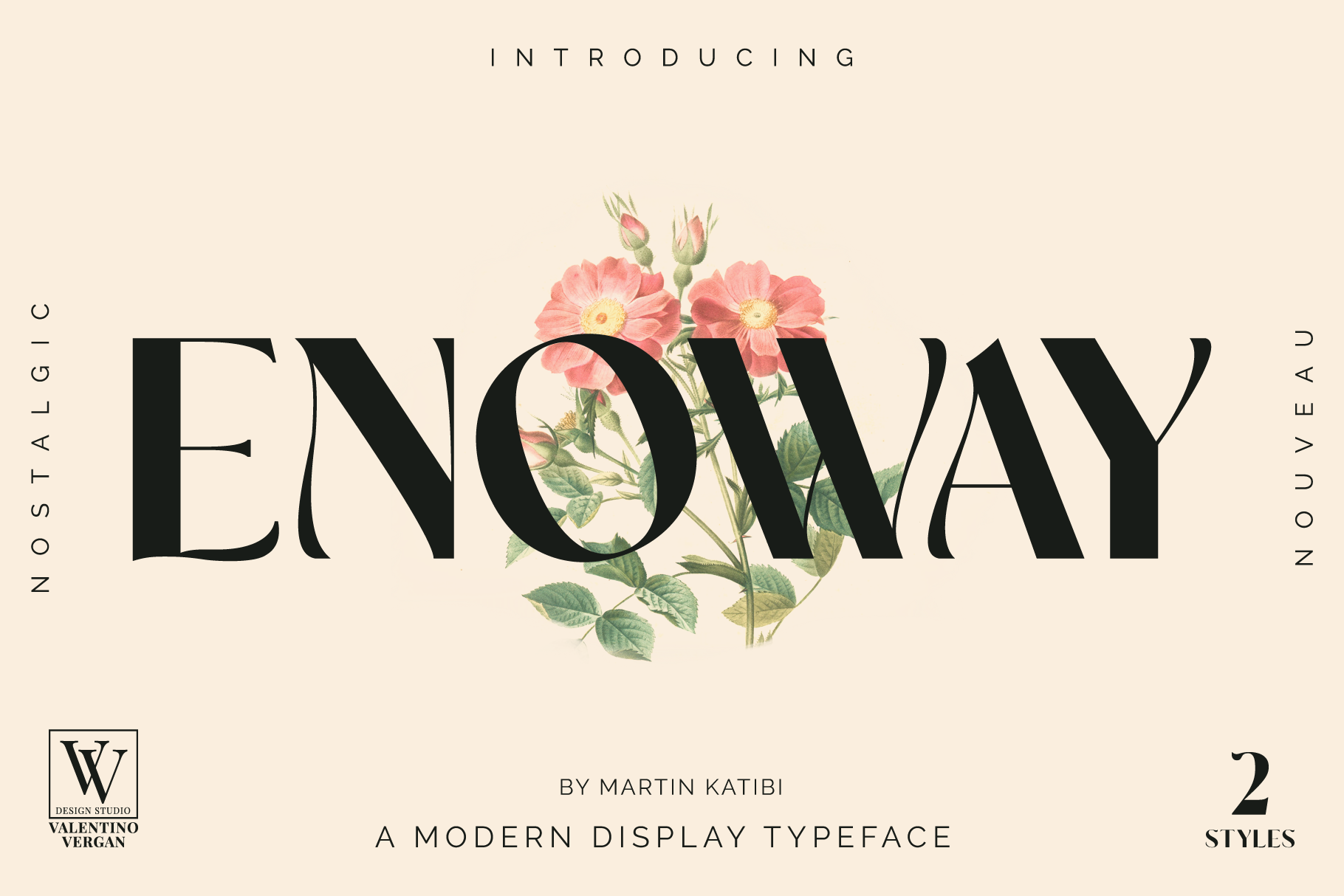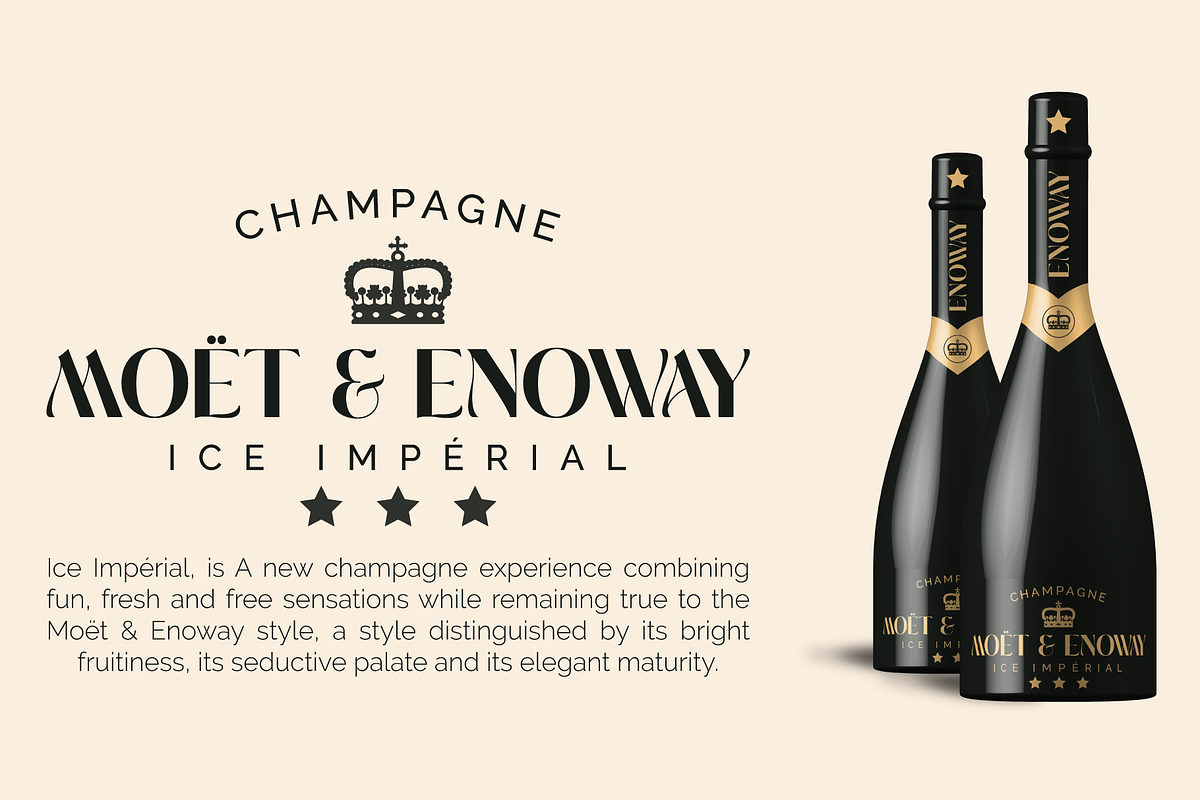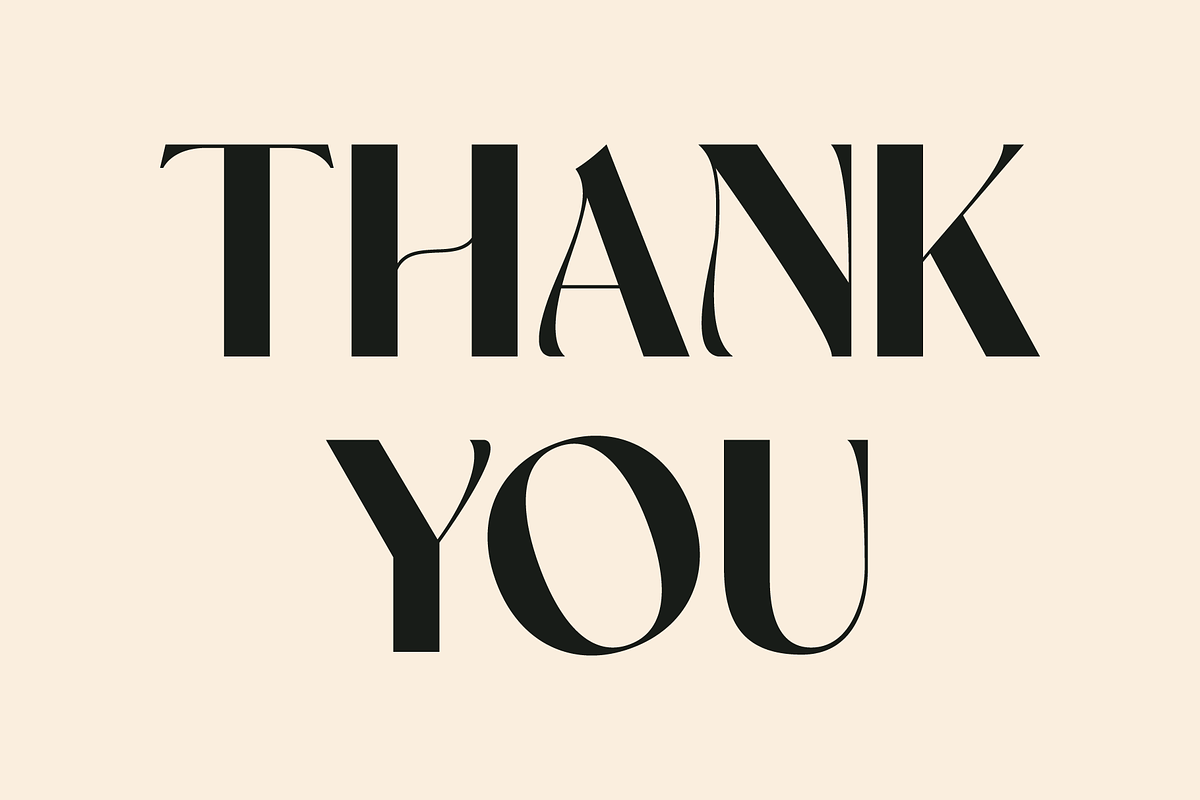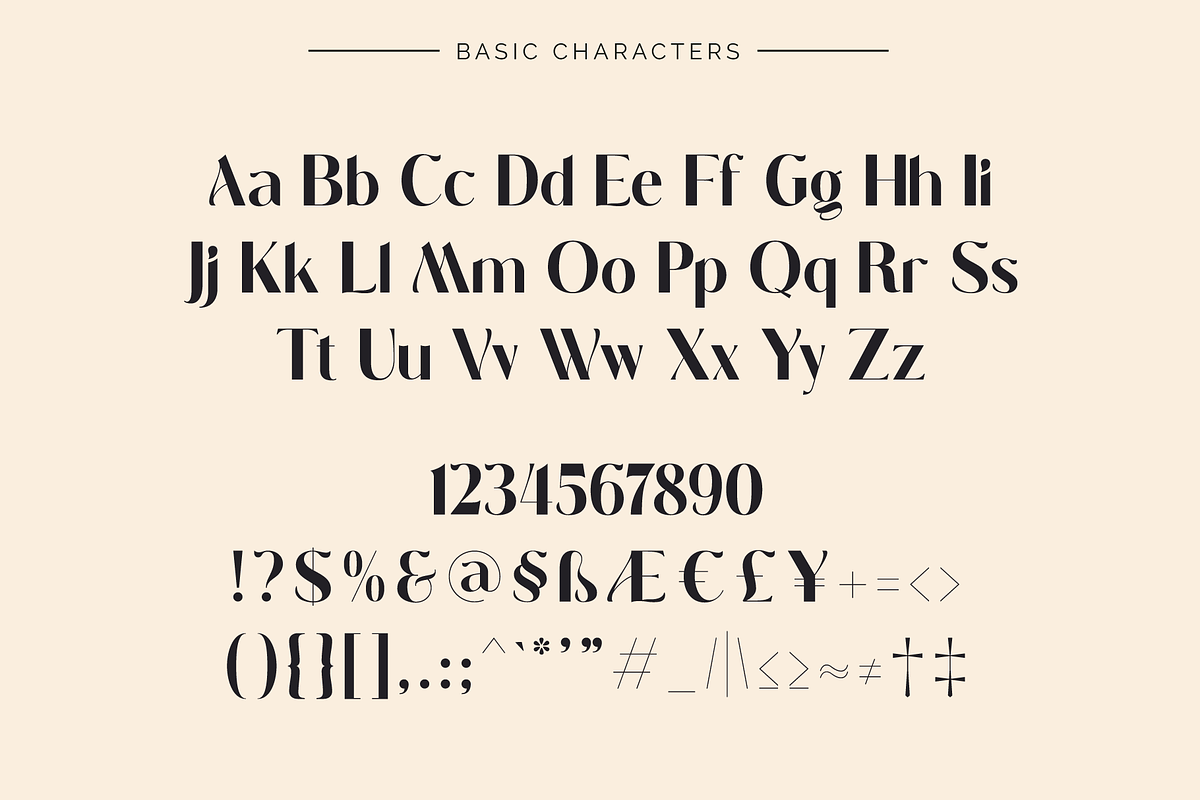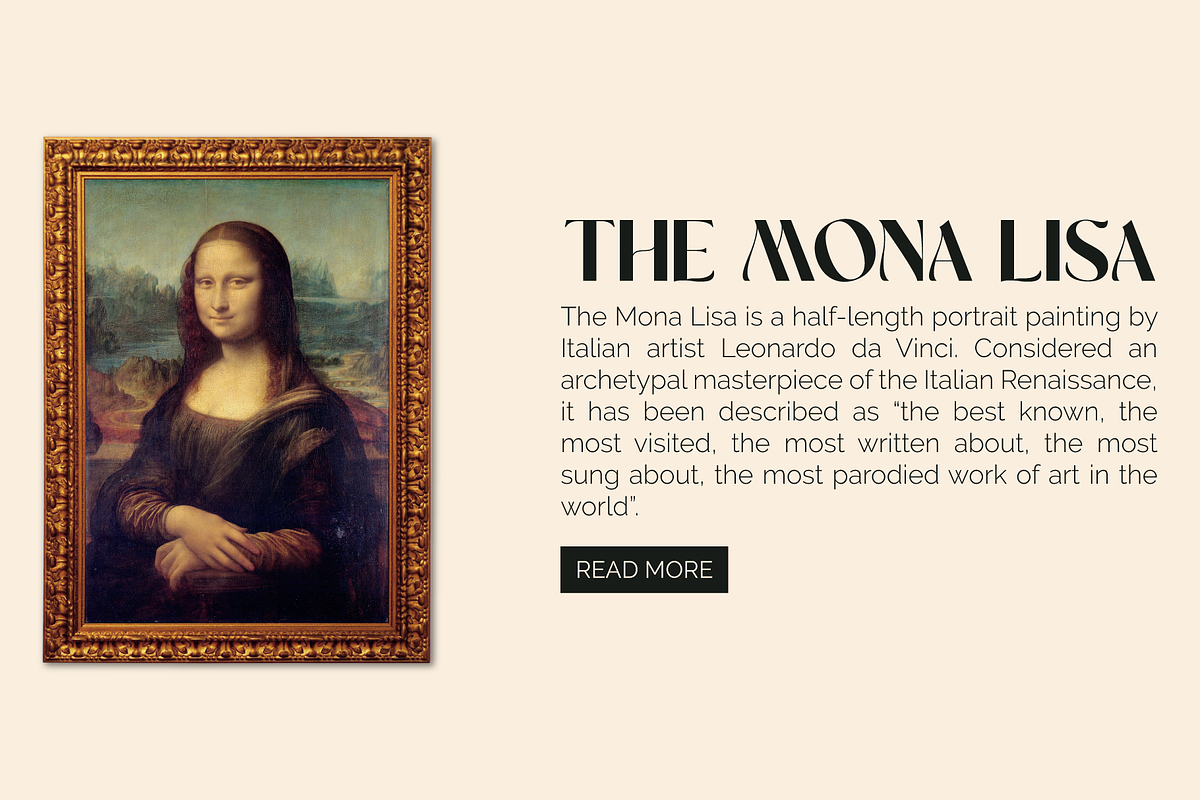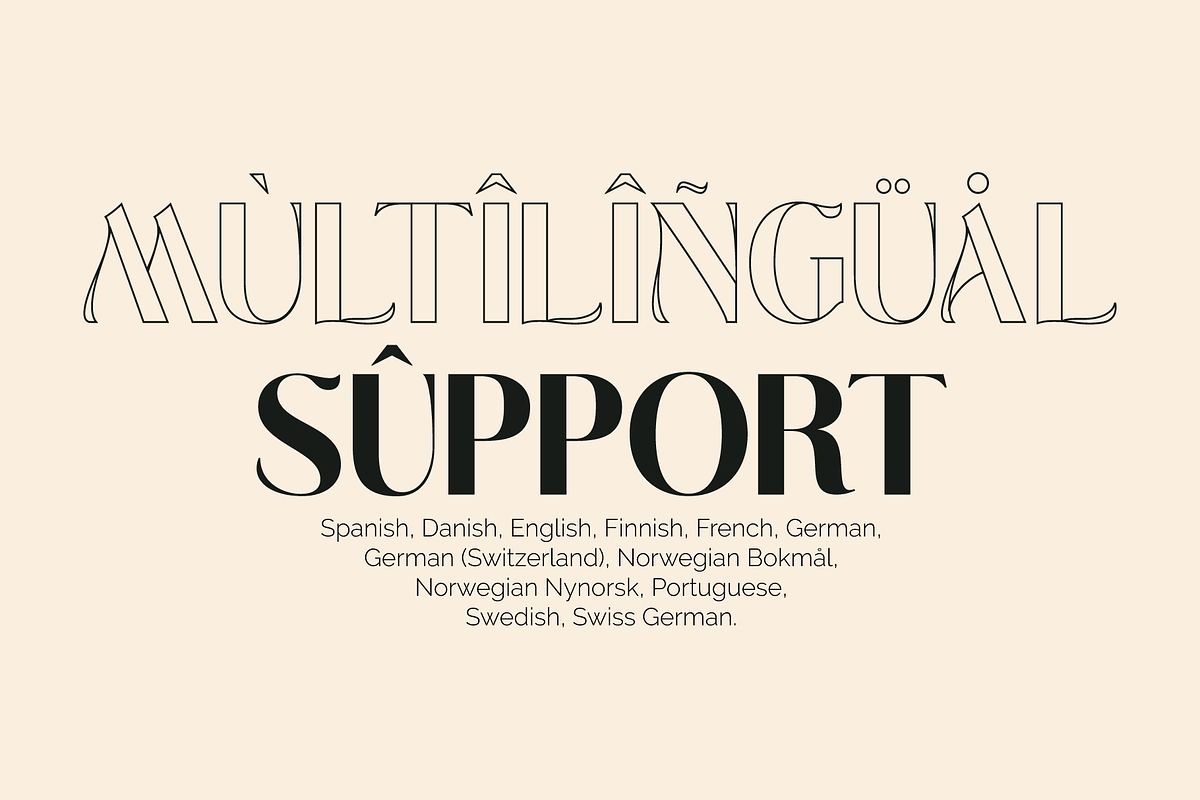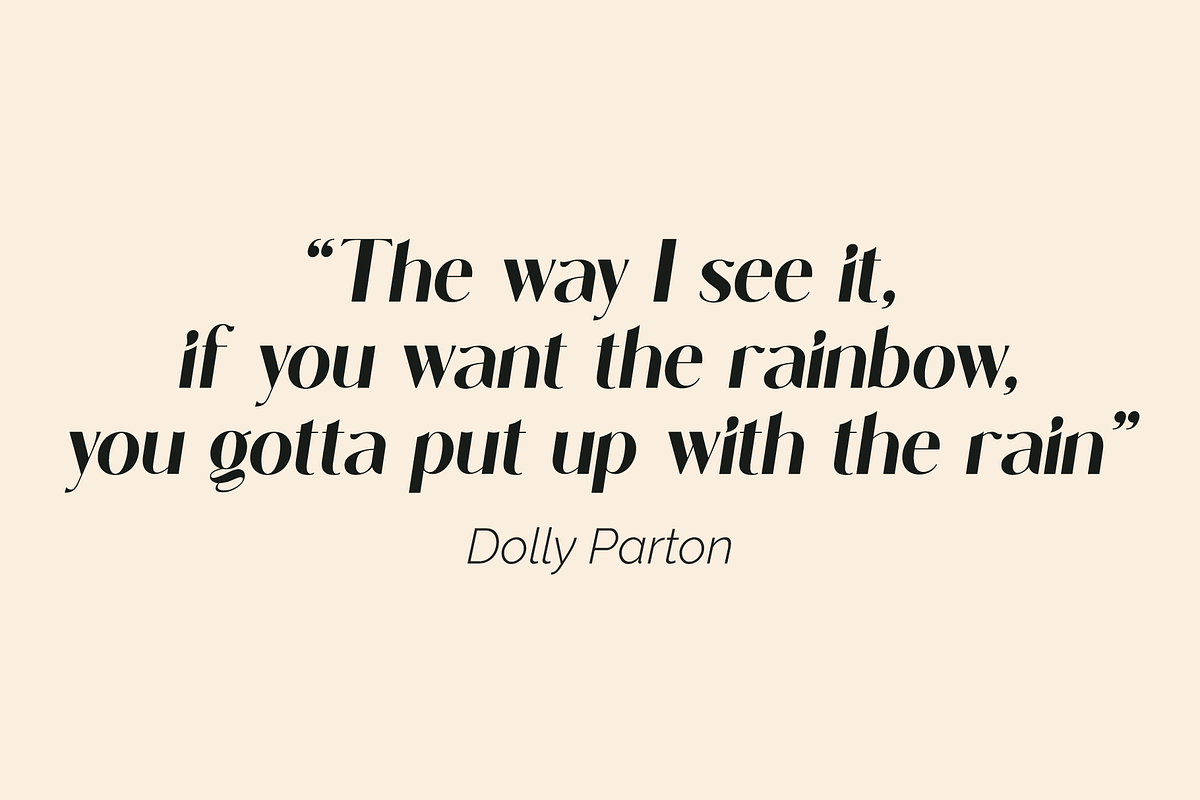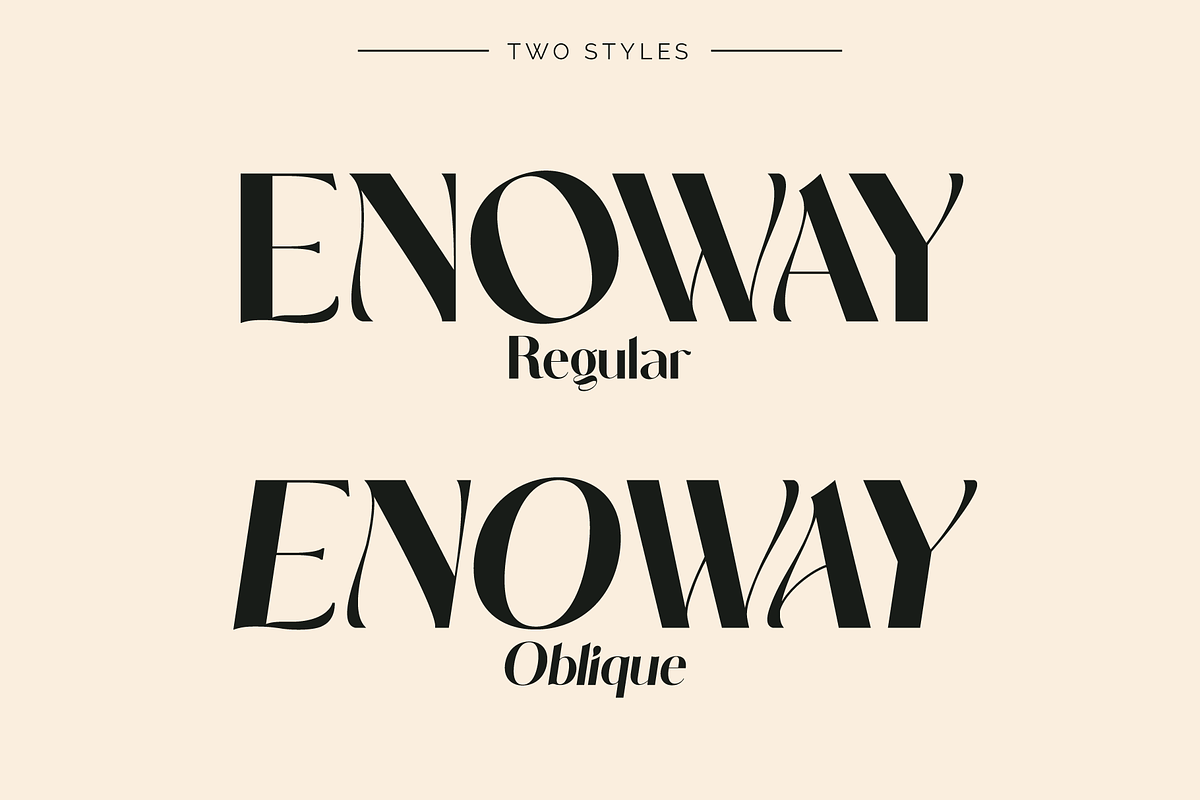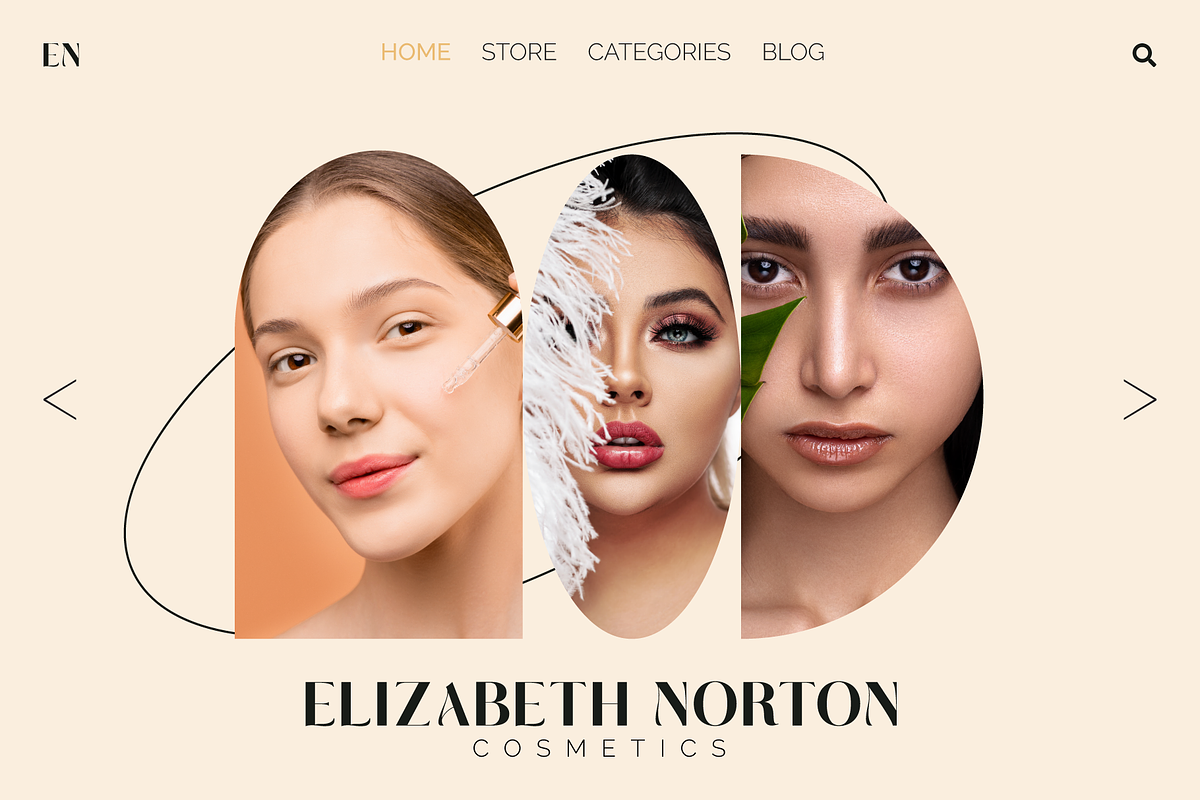
Enoway - Art Nouveau Typeface
Enoway is a modern elegant typeface, which leans towards the Neue Nouveau style. The Enoway typeface was inspired by the early the Art Nouveau typographic designs, which was characterized by decorative designs and embellished stroke endings. The Enoway typeface has a high-contrast and a thin hairline, this gives the typeface a modern but nostalgic look. The Enoway typeface comes in two styles, Regular and Oblique.
The Enoway typeface can be paired with a minimal sans serif or light script font, this combination will give your next project a modern and unique look.
The Enoway typeface is very versatile and can cover a wide range of project such as: fashion branding, mastheads, magazines, feminine logos, facebook banners, wedding invitations, Instagram posts, websites, blog posts, pull quotes, editorials, product packaging, trendy social media posts, advertisements and much more.
If you are looking for something modern and nostalgic for you next project, Enoway is the font for you.
ENOWAY INCLUDES A FULL SET OF:
- Uppercase and lowercase letters.
- Numbers.
- Punctuation.
- Ligatures.
- Alternate characters.
- Multilingual symbols.